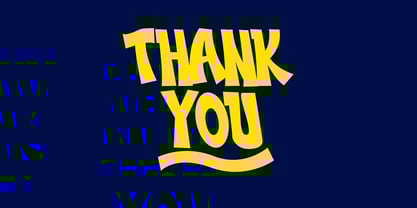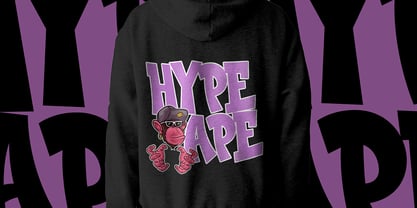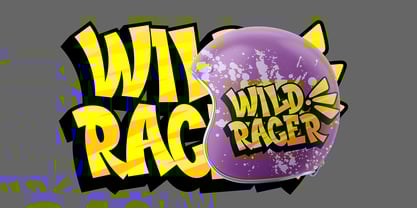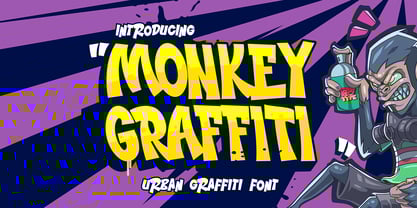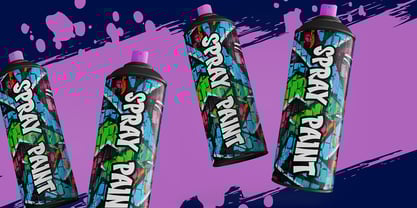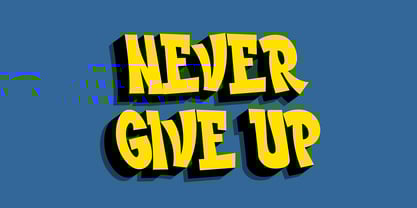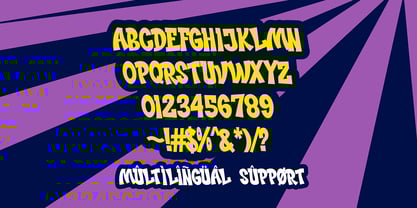
Monkey Graffiti
Die Schriftfamilie Monkey Graffiti wurde von Sipanji entworfen und von Sipanji21 veröffentlicht. Monkey Graffiti enthält 1 Stile.
Monkey Graffiti is a rebellious graffiti font that combines sharp edges with flexible, fluid strokes, creating a bold and dynamic street-style aesthetic. Its edgy and energetic design makes it perfect for urban branding, streetwear, posters, album covers, skate culture, and hip-hop-inspired projects. Whether you're looking to add attitude, movement, or an authentic graffiti touch to your designs, Monkey Graffiti delivers a raw and expressive look that stands out.